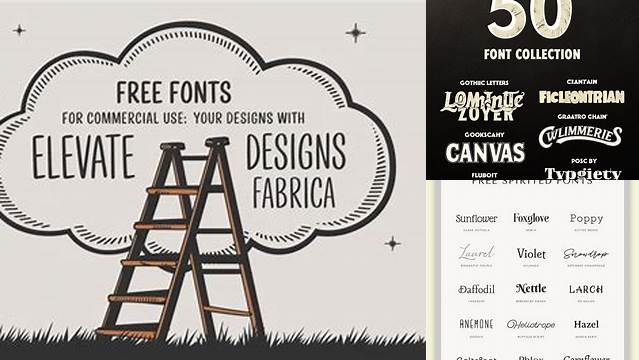
Get Your Free Fonts Pack: Download ZIP & Elevate Your Designs!
Hey everyone! Are you ready to spice up your design game? If so, you're in the right place! We're diving deep into the world of fonts pack free download ZIP, and trust me, it's going to be a blast. Whether you're a seasoned designer or just starting out, having a killer font collection is essential. Imagine the possibilities – crafting eye-catching social media posts, designing stunning websites, or even creating your own unique logos. With the right fonts, you can totally transform your projects and make them pop. Let's get started with this fonts pack free download ZIP guide!
1. Unveiling the Power of Fonts: Why Free Fonts are a Designer's Best Friend
Alright, guys, let's talk about why fonts pack free download ZIP is such a big deal. Fonts are more than just letters; they're the voice of your design. They set the tone, convey emotions, and instantly communicate your message. Think about it: a playful, handwritten font gives off a completely different vibe than a sleek, modern sans-serif. By having a diverse library of fonts, you have the power to express your creativity in countless ways. Now, you might be thinking, "Where do I get these amazing fonts?" Well, that's where the magic of fonts pack free download ZIP comes in. These packs often bundle together dozens, even hundreds, of fonts, offering incredible value without breaking the bank. It's like having a whole toolbox of design essentials right at your fingertips. Plus, free fonts are a fantastic way to experiment and find what styles resonate with your personal brand or the projects you're working on. You can mix and match different fonts, try out new combinations, and discover hidden gems that take your designs to the next level. And the best part? You don't have to spend a fortune to get started. So, if you're ready to supercharge your design capabilities, a fonts pack free download ZIP is the perfect starting point. Trust me; your designs will thank you!
1.2. The Benefits of Using Free Fonts in Your Designs
Okay, let's dive into the awesome advantages of using free fonts in your designs! We've already touched on how fonts pack free download ZIP can be a game-changer, but let's get specific. Firstly, free fonts are a fantastic resource for budget-conscious designers and businesses. When you're just starting out or working on a tight budget, the cost of premium fonts can be a major obstacle. Free fonts eliminate this financial barrier, giving you access to a vast library of design tools without spending a dime. Secondly, free fonts encourage experimentation and creativity. With a wide variety of styles at your disposal, you can try out different font combinations, explore various design aesthetics, and discover what works best for your projects. It's a low-risk way to find your design style and develop your skills. Thirdly, free fonts can save you tons of time. Instead of spending hours searching for the perfect paid font, you can quickly browse through your free font collection and find something that fits the bill. This allows you to focus on the other aspects of your design, such as layout, color, and imagery. And lastly, free fonts can help you stay on-trend. The design world is constantly evolving, with new font trends emerging all the time. By keeping your eye on the latest free font releases, you can stay current with design trends and incorporate them into your work. Ultimately, incorporating fonts pack free download ZIP in your design process is a win-win: it saves you money, boosts your creativity, saves you time, and helps you stay ahead of the curve. Go for it!
2. Where to Find the Best Fonts Pack Free Download ZIP Resources
Alright, you're stoked about getting your hands on a fonts pack free download ZIP; the question is: where do you find these treasures? Fear not, my friends, because I've got you covered with some of the best resources out there. Here are a few trusted websites and platforms where you can discover a wealth of free fonts, ready to download and use in your projects:
2.1. Top Websites Offering Free Fonts Packs
Let's start with some fantastic websites that specialize in providing high-quality fonts pack free download ZIP options. Firstly, we have Google Fonts. This is an absolute goldmine, offering a massive collection of open-source fonts that are completely free to use for both personal and commercial projects. Google Fonts are also super easy to integrate into your website, making them a go-to resource for web designers. Next up is Font Squirrel. This website is dedicated to finding high-quality, free fonts and provides a curated selection of amazing typefaces. They also offer a font identifier tool that can help you find fonts you admire. Then, there's DaFont. It's a huge directory of fonts, featuring a vast selection of free fonts, often categorized by style, theme, and designer. Remember to check the license before you download any font from DaFont. Another great option is 1001 Free Fonts. As the name suggests, this site offers a massive collection of free fonts, updated regularly with new releases. Always double-check the licensing terms. And finally, don't overlook Behance and Dribbble. These platforms are showcases for designers, and many creators offer free fonts as part of their portfolios. So, keep an eye out for freebies from talented designers. Using these resources is a breeze; simply browse the site, find the fonts you like, and look for the download link. Most websites will provide a zip file containing the font files in various formats (like .ttf or .otf). Now go forth and explore these amazing fonts pack free download ZIP resources!
2.2. Searching and Filtering for the Right Font Packs
Okay, so you're on one of those fantastic websites, ready to grab a fonts pack free download ZIP. But with so many options, how do you find the perfect fonts for your projects? Don't worry; here's a quick guide on searching and filtering to make your font hunt a breeze. First, use the search bar. If you have a specific font style in mind (e.g., "serif," "sans-serif," "handwritten"), type it into the search bar. Many websites also allow you to search by keyword, such as "modern," "retro," or "bold." Next, utilize the filtering options. Most font websites offer filters to narrow down your search. You can filter by font style, such as serif, sans-serif, script, or display. You can also filter by weight (light, regular, bold), width (condensed, extended), and even the designer or the licensing type (like OFL or CC). Preview the fonts before downloading. Before you download a fonts pack free download ZIP, take a moment to preview the fonts. Many websites allow you to type in your own text to see how the fonts will look in your designs. This helps you visualize how the font will fit into your project. And finally, use font pairing tools. Some websites offer font pairing tools that suggest fonts that complement each other. These tools can be a great way to discover new font combinations. By mastering these simple search and filtering techniques, you'll be able to find the perfect fonts pack free download ZIP resources to enhance your projects quickly and efficiently. Happy hunting!
2.3. Best Practices for Downloading and Installing Font Packs
Alright, you've found the perfect fonts pack free download ZIP and are ready to get started! But before you dive into your design projects, let's go over the best practices for downloading and installing font packs. First, download the font pack from a reputable source. Always download fonts from trusted websites to ensure you're getting safe and virus-free files. Second, unzip the downloaded file. The font pack will usually come in a ZIP file. Right-click on the file and select "Extract All" or a similar option to unzip it. This will create a folder containing the font files. Third, install the fonts on your operating system. For Windows, right-click on the font files (usually .ttf or .otf) and select "Install." On a Mac, double-click the font files, and click the "Install Font" button. After the installation, your fonts will be available in your design software. Next, organize your fonts. After installing your fonts pack free download ZIP, consider organizing your fonts into folders or using a font management tool. This makes it easier to find and manage your fonts. Then, test the fonts in your design software. Open your design software and check if the new fonts are available in the font menu. Try typing some text with the fonts to ensure they work correctly. Finally, restart your design software. Sometimes, you might need to restart your design software for the new fonts to appear. After following these best practices, you can confidently use your new fonts in your design projects. Enjoy!
3. Exploring Font Styles and Categories: Finding the Perfect Match
Now that you know the ropes of fonts pack free download ZIP, it's time to explore different font styles and categories. This will help you choose the right fonts for your design projects. Let's break down some common font categories and how to use them effectively:
3.1. Serif vs. Sans-Serif: Understanding the Fundamentals
Let's start with the big two: Serif and Sans-Serif fonts. Understanding the difference between these font styles is fundamental to good design. Serif fonts are fonts that have small strokes or "serifs" at the end of each letter. Think of Times New Roman or Garamond. They often convey a sense of tradition, elegance, and formality. They are great for body text in print materials like books and magazines because the serifs help guide the eye across the page. On the other hand, Sans-Serif fonts do not have these small strokes. They have a cleaner, more modern look. Think of Arial or Helvetica. These fonts are known for their simplicity and readability, especially on screens. They are often used for headlines, website content, and modern design projects. Choosing between serif and sans-serif depends on the message you want to convey. If you want to appear classic, trustworthy, or sophisticated, choose a serif font. If you want to appear modern, clean, and straightforward, use a sans-serif. Keep this in mind as you explore your fonts pack free download ZIP options!
3.2. Script Fonts: Adding a Touch of Elegance and Personality
Next, we have Script fonts. These fonts are designed to mimic handwriting, calligraphy, or brushstrokes. They add a touch of elegance, personality, and flair to any design. Script fonts come in various styles: formal scripts, which are elegant and often used in invitations; casual scripts, which look like natural handwriting; and brush scripts, which mimic the look of brushstrokes. Script fonts are perfect for titles, headings, logos, and any design element where you want to add a touch of personality and visual interest. However, use them sparingly. Because script fonts can sometimes be difficult to read, they should not be used for large blocks of text. When choosing a script font from your fonts pack free download ZIP, consider the overall tone of your design. If you want something elegant and sophisticated, choose a formal script. For a more casual feel, opt for a handwritten script. With their unique character, script fonts are sure to make your designs stand out. Just be mindful of their readability, and you'll be golden!
3.3. Display Fonts: Making a Bold Statement with Unique Styles
Let's move on to Display fonts. Display fonts are designed to grab attention and make a bold statement. They're perfect for headlines, posters, and any design element where you want the text to be the star of the show. They come in a wide range of styles: from vintage and retro designs to modern and experimental typefaces. Display fonts can be highly decorative, with unique shapes, sizes, and details. Because of their distinctive nature, display fonts are best used sparingly. They are usually intended for short text passages and are not suitable for body text. When selecting a display font from your fonts pack free download ZIP, consider the message you want to convey and the overall style of your design. A bold, quirky display font can work wonders for a fun, youthful brand, while a vintage display font can add a touch of nostalgia. Remember that the primary goal of any design is to communicate effectively. Make sure the font is not only eye-catching but also easy to read. Choose a display font that matches your brand, and get ready to create some visual impact!
4. Fonts Pack Free Download ZIP: Choosing the Right Fonts for Your Projects
Now that we've covered different font styles, it's time to talk about choosing the right fonts for your specific projects. Getting a fonts pack free download ZIP is great, but picking the right fonts from that pack is key to design success. Here are some tips and considerations to help you choose effectively:
4.1. Matching Fonts to Your Brand's Identity
One of the most critical aspects of choosing fonts is matching them to your brand's identity. Think about your brand's personality, values, and target audience. Is your brand modern and minimalist, or are you more playful and quirky? Do you want to project trust and sophistication, or are you going for a fun and energetic vibe? The fonts you choose should reflect these elements. For example, if your brand is sophisticated, consider using a classic serif font. If you're aiming for a modern look, a clean sans-serif font might be a better choice. If your brand has a playful personality, you might consider a handwritten or quirky display font. In a nutshell, when exploring your fonts pack free download ZIP, ask yourself how the fonts will impact your audience. Selecting fonts that align with your brand's identity will create a cohesive and consistent brand image that resonates with your target audience. The best fonts are those that communicate your brand's message effectively.
4.2. Font Pairing: Creating Harmonious Typography Combinations
Font pairing is the art of combining different fonts to create a visually appealing and effective design. While a fonts pack free download ZIP gives you a variety of options, the magic often happens when you combine fonts thoughtfully. The goal of font pairing is to create visual harmony and contrast. Here are a few tips for successful font pairing: Start with the basics. Choose one font for headings and another for body text. The heading font should grab attention, while the body font should be readable. Try contrasting styles. Combine a serif font with a sans-serif font for a classic pairing. Look for fonts with similar x-heights. This can help create a balanced look. Don't be afraid to experiment. Test different combinations and see what looks best for your project. There are many tools and resources available to help you with font pairing. Explore some free pairing tools and check out design inspiration websites, and you will be amazed! Effective font pairing can elevate your designs and give your projects a more professional and polished look. So, get creative with your fonts pack free download ZIP selection and enjoy the process of discovering new combinations!
4.3. Font Readability and Accessibility Considerations
Even if you have the most visually appealing fonts, if your text isn't readable, your design will fail. So, it's important to consider font readability and accessibility. Readability is key, especially for body text. Choose fonts with clear letterforms and sufficient spacing. Avoid using fonts that are too thin, too condensed, or have overly decorative elements for large blocks of text. Accessibility means making your designs usable for people with disabilities. When choosing fonts from your fonts pack free download ZIP, consider contrast. Ensure there's enough contrast between your text and the background color. People with visual impairments may have trouble reading text with low contrast. Use appropriate font sizes. Ensure the text is large enough to read comfortably. This is especially important for people with vision issues. Provide text alternatives for images. Use descriptive alt tags for any text that appears in images. Follow these best practices to ensure your designs are accessible and easy to read. These are critical factors in creating effective and inclusive designs. Prioritize readability, and your message will reach a wider audience. Remember, the design is not only about aesthetics; it is also about effectively communicating your message, so choose your fonts thoughtfully. It is important to consider the accessibility requirements when using fonts pack free download ZIP.
5. Advanced Tips and Tricks for Font Pack Mastery
Once you've mastered the basics, here are some advanced tips and tricks to take your font game to the next level. We've covered the fonts pack free download ZIP essentials, and now it's time to level up your skills!
5.1. Exploring Font Families and Weights
Let's talk about the power of font families and weights! When you download a fonts pack free download ZIP, you usually get access to a font family. This is a set of fonts that share the same design but come in different weights (light, regular, bold, etc.) and styles (italic, condensed, etc.). Utilizing a font family is a simple and effective way to create visual consistency in your designs. Use different weights of the same font for headings, subheadings, and body text. This helps create visual hierarchy and guide the reader's eye. Using font weights provides a great deal of flexibility and control. Play with the different weights and styles to find the perfect balance for your projects. Learning to master font families is critical to developing design expertise. It provides a level of professionalism, clarity, and visual impact. So, when exploring your fonts pack free download ZIP, pay attention to the font families and how you can use their different weights to elevate your designs!
5.2. Using Font Management Tools for Organization and Efficiency
As your font collection grows, managing all those fonts can become a headache. Thankfully, font management tools can streamline your workflow and keep your fonts organized and accessible. These tools allow you to organize your fonts, activate and deactivate them as needed, and preview them easily. Some popular font management tools include Adobe Font Manager, FontBase, and NexusFont. Using these tools makes it easier to find the fonts you need, avoid font conflicts, and keep your design projects organized. After you download a fonts pack free download ZIP, consider using font management tools to save time and reduce stress. This is particularly useful if you work with many fonts regularly. You can quickly search, preview, and activate fonts for your projects. These tools also can automatically fix common font issues, helping make your design process more efficient. Ultimately, embracing these tools ensures that you are on top of your font game.
5.3. Staying Updated with Font Trends and Design Innovations
The design world is constantly evolving, and staying updated with the latest font trends and design innovations is key. By staying current, you'll be able to keep your designs fresh, relevant, and captivating. Follow design blogs and websites. There are a ton of design blogs that regularly share font trends, new font releases, and design inspiration. Stay informed about design trends and innovation. Knowing about the latest trends can help you create cutting-edge designs. Experiment with new font combinations and styles. Be adventurous! Explore different font combinations and design styles. You can also get inspiration from the work of other designers. Keep your eye on the latest design releases and design trends to keep your designs on point. This will give you a competitive edge and help you stay ahead of the curve. Keep exploring your fonts pack free download ZIP and experimenting with different styles.
6. Troubleshooting Common Font Issues: A Handy Guide
Even with the best fonts, sometimes you'll run into issues. So, let's dive into troubleshooting common font problems. We've navigated the world of fonts pack free download ZIP and now let's fix potential issues.
6.1. Font Conflicts and How to Resolve Them
Font conflicts can be a major headache in design. This happens when two fonts have the same name, or when a new font replaces an old one, leading to design chaos. However, it is fixable. First, identify the conflicting fonts. In your design software, check the font menu. If you see font names duplicated or font styles that appear incorrect, you may have a conflict. Deactivate or uninstall the conflicting fonts. One way to resolve conflicts is to deactivate or uninstall the fonts that are causing the issue. Use a font management tool to simplify the process. Clear your font cache. Sometimes, a font cache can cause conflicts. Clear your font cache on your operating system to help ensure that the correct fonts are being displayed. By being proactive and taking the necessary steps, you can address and resolve these conflicts, ensuring that your designs are displayed correctly. When you are using your fonts pack free download ZIP, knowing how to troubleshoot font conflicts can save you valuable time and frustration.
6.2. Missing Fonts and Font Substitution Issues
Missing fonts and font substitution are common issues that occur in design, especially when opening files created on another system. It's when your design software replaces the font you used with a default font, such as Arial or Times New Roman. This is because your system doesn't have the original font installed. Here's how to fix it. Identify the missing fonts. Your design software will usually tell you which fonts are missing when you open the file. Install the missing fonts. If you know which fonts are missing, install them on your system. Replace the missing fonts. If you cannot find the missing font, substitute it with a similar font. Try to match the style and the personality of the original font as closely as possible. By being prepared, you can get back to work quickly and enjoy your fonts pack free download ZIP.
6.3. Font Rendering Issues and How to Fix Them
Font rendering issues refer to when fonts appear distorted, blurry, or incorrectly displayed on your screen or when printed. First, ensure that your fonts are installed correctly. Check if the fonts are installed in the correct font folders. Verify font file integrity. Make sure the font files aren't corrupted. Corrupted font files can cause rendering issues. Adjust font smoothing settings. Your operating system's font smoothing settings can affect how fonts are displayed. Ensure that font smoothing is enabled and set to the appropriate level for your monitor. In addition, update your graphics drivers. Sometimes, outdated graphics drivers can cause font rendering problems. By taking these steps, you can fix font rendering issues. Using fonts pack free download ZIP will be even more satisfying once you resolve any problems.
7. Fonts Pack Free Download ZIP: Legal Considerations and Best Practices
Navigating the world of fonts means paying attention to legal considerations and embracing best practices. We've explored fonts pack free download ZIP and now let's address licensing, usage, and ethical considerations.
7.1. Understanding Font Licenses: Commercial vs. Personal Use
Understanding font licenses is crucial when you use fonts pack free download ZIP. There are many types of font licenses, each with different terms. The two main categories are commercial and personal use. Personal use licenses allow you to use a font for non-commercial purposes, such as personal projects, school projects, or other non-profit endeavors. Commercial use licenses let you use a font for commercial projects, such as business logos, marketing materials, and products that will be sold. Pay close attention to these licenses. For commercial projects, always use a font that has a commercial license. Otherwise, you could face legal issues. Some fonts have different license options. Be sure to read the license agreement. By familiarizing yourself with font licenses, you can use your fonts pack free download ZIP in a responsible way.
7.2. Avoiding Copyright Infringement and Legal Issues
Avoiding copyright infringement is super important when you use a fonts pack free download ZIP. Here are a few essential tips. First, always check the font's license before using it. Make sure you understand the permitted uses, restrictions, and any attribution requirements. Second, only use fonts that you have the proper license for. Do not use commercial fonts for personal use. Third, be wary of free font sites. Ensure the site is legitimate and the fonts are licensed correctly. Failing to follow these steps can lead to serious copyright violations. If you violate copyright laws, you could face significant fines and legal action. By prioritizing ethical design practices, you can use your fonts pack free download ZIP without any legal worries.
7.3. Ethical Design Practices and Responsible Font Usage
Ethical design practices are about more than just avoiding legal issues. Here's a look at ethical design and responsible font usage. Prioritize font readability. When you're selecting fonts from your fonts pack free download ZIP, consider the accessibility and readability of your designs. Make sure the fonts are easy to read and accessible to everyone. Respect font designers. Consider supporting font designers by purchasing their fonts or giving proper attribution. Be mindful of font selection. Consider cultural sensitivities when choosing fonts. Some fonts are tied to specific cultures or styles. By incorporating ethical design practices, you can create designs that are effective, inclusive, and respectful of others. This approach not only benefits your design projects but also contributes to a more ethical design community.
8. Future Trends in Font Design: What to Watch Out For
The world of font design is dynamic, and staying ahead of emerging trends is essential. We've explored fonts pack free download ZIP, and now let's look at the future of fonts.
8.1. Variable Fonts: The Next Evolution in Typography
Variable fonts represent a giant leap in typography. They are a single font file that packs multiple variations into one. This means you can adjust different attributes like weight, width, and style, all within the same font file. Here are some advantages. Variable fonts give designers unprecedented flexibility. They allow for smoother transitions and more control over font appearance. They can also reduce file size. Because they combine multiple font styles into a single file, they can reduce the amount of storage space needed. Variable fonts are compatible with modern web browsers and design software. When choosing fonts for your projects, keep an eye on the development of variable fonts. Embrace their features and unlock new creative possibilities in typography. Variable fonts will revolutionize how we use fonts pack free download ZIP.
8.2. The Rise of Custom and Unique Fonts
Custom and unique fonts are becoming more popular as businesses and designers seek ways to stand out from the crowd. It is the way to set yourself apart and add a personalized touch. Here is how to get started. Explore specialized font foundries. Look for font foundries that offer custom font design services. Consider creating your own font. If you have some design expertise, you can design your own font. Create a unique brand identity. Use a custom font that is representative of your brand and will make your designs stand out. To stay ahead of the curve, be aware of the rising demand for custom fonts. They add a special touch to design projects. Create a unique brand identity, and unlock new creative possibilities in typography. This will change the way you use fonts pack free download ZIP.
8.3. Font Design and Technology: The Convergence of Creativity and Innovation
Technology is shaping the future of font design. Creative innovation is rapidly growing. Here are a few trends. Explore AI-powered font tools. AI is being used to generate font designs and enhance design workflows. Pay attention to the development of motion typography. With the increasing importance of animation and motion graphics, you will see new opportunities to enhance your design projects. The possibilities are endless. Stay at the forefront of the design industry by experimenting with advanced design techniques. Keep your eye on the latest technological innovations, and you'll be well prepared to use fonts pack free download ZIP.
9. Resources and Tools for Font Pack Users: Your Design Toolkit
Having the right resources and tools can make your design projects run smoother and faster. We've explored fonts pack free download ZIP, and now, here are some essential resources and tools for font pack users.
9.1. Free Font Pairing and Management Websites
Using the right font management and pairing tools is essential. Here are some valuable resources. Try FontPair. It helps you with pairing fonts and also provides visual examples of font combinations. Use FontSquirrel. FontSquirrel provides a vast library of free fonts. They also offer font identification tools and license information. Try Typewolf. Typewolf is a great resource to find font inspiration, explore design trends, and create combinations. By leveraging these tools, you can ensure you have the resources for success. Make sure you are ready to make the most of the fonts pack free download ZIP!
9.2. Design Software and Plugins for Font Customization
Design software and plugins can significantly enhance the design workflow. Explore the world of design software. Adobe Photoshop, Illustrator, and other design software can help in your design process. Use font customization plugins. Some plugins allow you to change the appearance of fonts in your design projects. Take your design skills to the next level, and maximize the value of your fonts pack free download ZIP.
9.3. Online Tutorials and Design Communities for Font Inspiration
Learning from online tutorials and engaging with design communities is invaluable. Explore online resources and design communities. Look for design tutorials. Use platforms like YouTube or Skillshare. Join design communities. Engage with fellow designers on forums, social media, or online groups. By embracing online tutorials and engaging with design communities, you can greatly expand your design knowledge and abilities. This approach will help you become a proficient font user and make the most of your fonts pack free download ZIP.
10. Conclusion: Elevate Your Designs with the Power of Fonts
Congratulations! You've reached the end of our deep dive into fonts pack free download ZIP. You now have the knowledge and resources to transform your designs. Here's a quick recap and some final thoughts.
10.1. Key Takeaways and Actionable Steps
Key takeaways: Understand the importance of fonts. Learn about font styles, categories, and licensing. Choose the right fonts for your projects. Use advanced tips. And lastly, leverage the best tools and resources. Actionable steps: Start by exploring your fonts pack free download ZIP. Experiment with different fonts and create different combinations. Use font pairing tools. And stay updated with the latest design trends.
10.2. The Future of Design and the Role of Typography
Typography will continue to play a crucial role in the future of design. As visual communication evolves, so does the importance of typography. Be prepared to stay current with font trends, explore new design techniques, and adapt to changing technology. Make sure you are ready to embrace change and innovation. This will help you create amazing and compelling designs. Use this guide to propel your skills. Remember, mastering typography will take your design projects to the next level.
10.3. Embracing Creativity and Continuous Learning
Design is an evolving field, and continuous learning is key to staying ahead. Do not stop learning. Make sure you keep exploring different styles and techniques, and learn about new technologies. Embrace your creativity. Experiment and find your own unique design style. And stay inspired by design and fellow designers. Design is a field that embraces innovation and is full of opportunities. By embracing creativity, you can use your fonts pack free download ZIP and take your design projects to the next level.